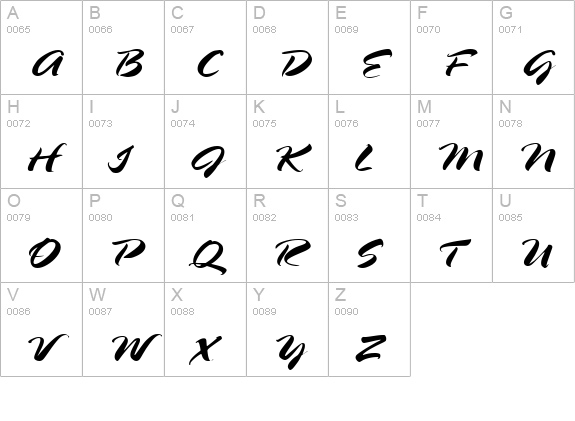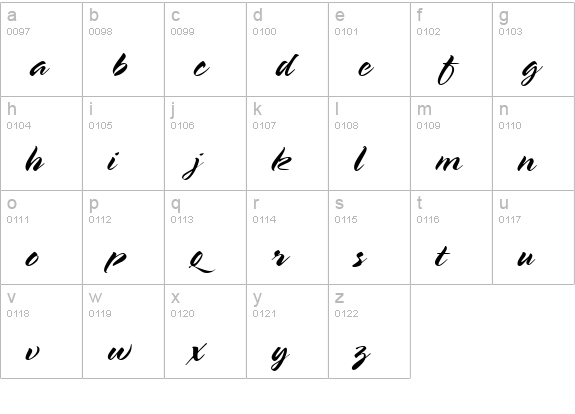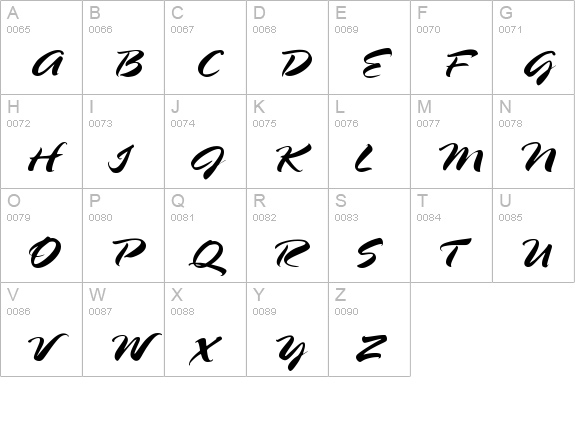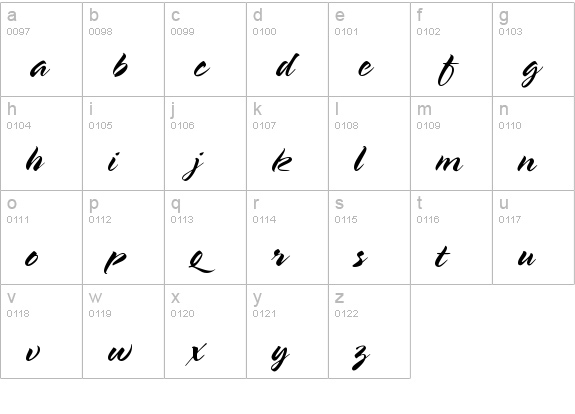
Walzer font is a stunning display typeface that exudes elegance and sophistication. With its graceful curves and stylish flourishes, Walzer is perfect for adding a touch of class to any design project. This versatile font is ideal for titles, headings, invitations, and more. What sets Walzer font apart is not just its beauty, but also the fact that it is available for free download at FontsMarket.com. This means you can easily access this exquisite font and use it in your projects without any cost. Whether you're working on a personal project or a professional one, Walzer font is sure to elevate your design with its timeless appeal. Download Walzer font for free today and add a touch of elegance to your creations.